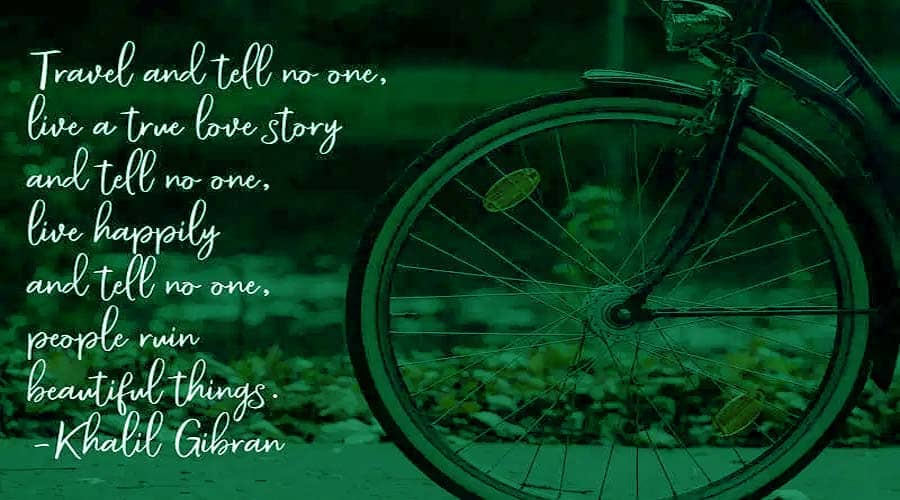
Roullet Script Font – Download Free
Roullet Script Font Free Download is included! A contemporary calligraphy typeface. Weasel Foundry created and released Roullet on July 25, 2018.
Roullet Script Font Free Download is a modern and elegant calligraphy font with a varying baseline and a smooth line. The font seems to to be available in both TrueType and OpenType file formats. This font is available for Microsoft Windows, Mac OS X, Firefox, Cricut, Silhouette, and other computer chips. It is simple to convert fonts like Roullet Script Font Free to web fonts.
If you need a font for your design project, Roullet Script Font Free Download is a great choice. The font can be used for many different things, including headings, signatures, logos, wedding invitations, t-shirts, letterhead, signage, labels, news, posters, badges, and so on. It may also get used for setting the menu writing for all type of restaurants or cafes.